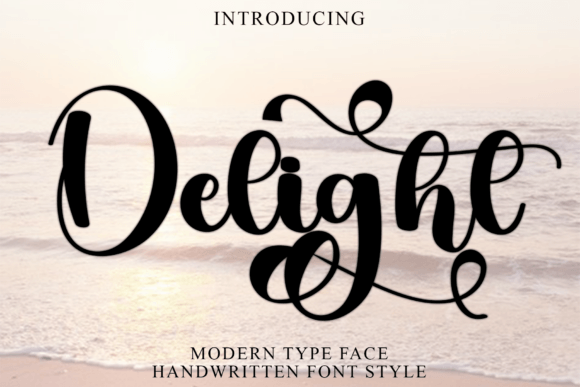
Introducing Delight Font: Elevate Your Designs with Elegance and Sophistication
In the world of typography, few fonts manage to capture the essence of elegance and sophistication as beautifully as the Delight Font. This stunning script font is a game-changer for designers and crafters looking to add a touch of luxury and refinement to their projects. Whether you’re working on wedding invitations, thank you cards, quotes, greeting cards, logos, business cards, or any other design that requires a handwritten touch, Delight Font is the perfect choice.
The Beauty of Delight Font
Delight Font is a stylish and incredibly elegant script font that exudes sophistication and poise. Its intricate and flowing lines are reminiscent of traditional calligraphy, making it an excellent choice for designs that require a personal and human touch. The font’s unique and distinctive style sets it apart from more traditional fonts, allowing designers to create truly unique and eye-catching designs.
One of the best things about Delight Font is its versatility. It’s perfect for a wide range of design projects, including:
- Wedding Invitations: Add a touch of elegance and sophistication to your wedding invitations with Delight Font. Its beautiful and flowing lines make it perfect for formal and informal wedding stationery.
- Thank You Cards: Express your gratitude in style with Delight Font. Its elegant and refined lines make it perfect for thank you cards, gift tags, and other correspondence.
- Quotes and Posters: Add a touch of luxury and sophistication to your quotes and posters with Delight Font. Its unique and distinctive style makes it perfect for designs that require a personal and human touch.
- Greeting Cards: Create beautiful and eye-catching greeting cards with Delight Font. Its elegant and refined lines make it perfect for birthdays, holidays, and other special occasions.
- Logos and Branding: Use Delight Font to create a unique and memorable logo for your business or brand. Its sophisticated and elegant lines make it perfect for businesses that want to convey a sense of luxury and refinement.
- Business Cards: Stand out from the crowd with Delight Font on your business cards. Its elegant and refined lines make it perfect for professionals who want to make a lasting impression.
Why Choose Delight Font?
So why choose Delight Font over other script fonts? Here are just a few reasons why Delight Font stands out:
- Unique and Distinctive Style: Delight Font has a unique and distinctive style that sets it apart from more traditional fonts.
- Elegant and Refined Lines: Delight Font’s elegant and refined lines make it perfect for designs that require a personal and human touch.
- Versatile: Delight Font is perfect for a wide range of design projects, from wedding invitations to logos and branding.
Tips for Using Delight Font
Here are a few tips for using Delight Font in your designs:
- Use it Sparingly: Delight Font is a statement font, so use it sparingly to make a big impact.
- Pair it with Other Fonts: Pair Delight Font with other fonts to create a unique and eye-catching design.
- Pay Attention to Kerning: Pay attention to kerning to ensure that your text looks professional and polished.
In conclusion, Delight Font is a stylish and incredibly elegant script font that’s perfect for designers and crafters looking to add a touch of luxury and refinement to their projects. Its unique and distinctive style, elegant and refined lines, and versatility make it a great choice for a wide range of design projects. Whether you’re working on wedding invitations, thank you cards, quotes, greeting cards, logos, business cards, or any other design that requires a handwritten touch, Delight Font is the perfect choice.